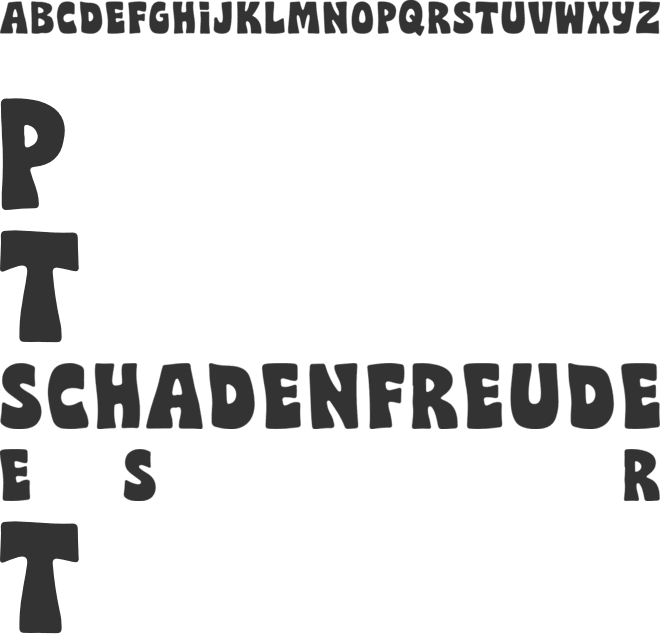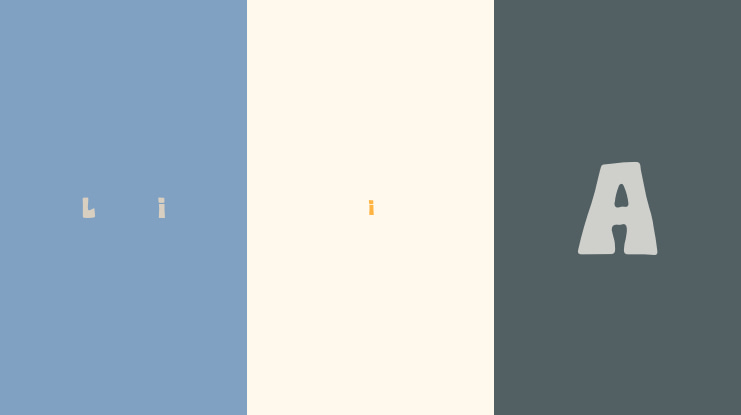
LUMORA Font
🎨 Font Name: BALOUN by Minimalist Art Studio
🎨 Font Description: Voltage is a tall, condensed sans serif font in Regular and Italic styles—perfect for bold headlines, modern branding, tech interfaces, and minimalist layouts; free for subscribers and built to energize your design flow.